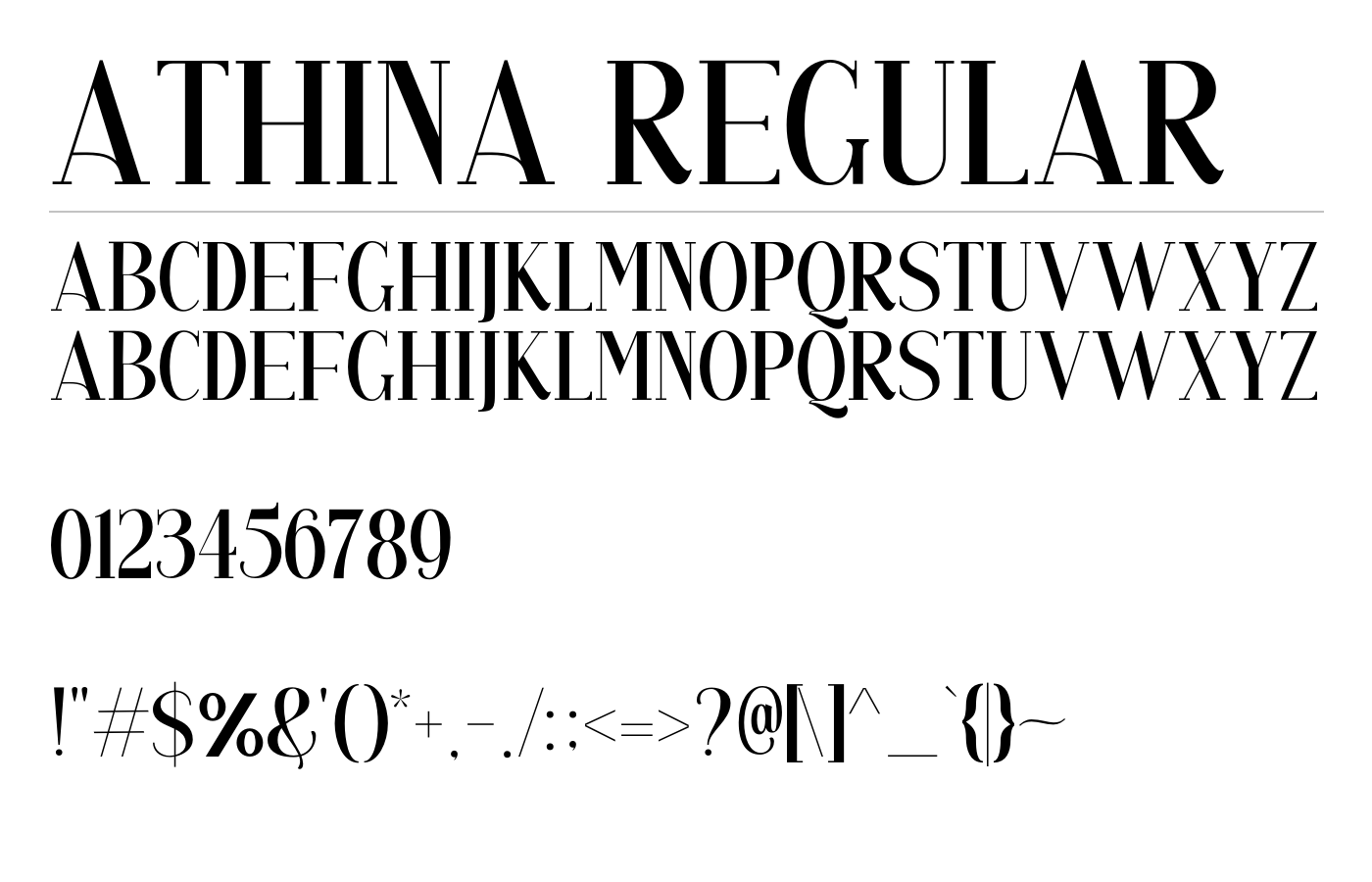
Athina Regular is an elegant serif font with a high contrast between thick and thin strokes, featuring refined, sharp serifs that give it a sophisticated, classic appeal. Its tall, narrow letterforms and unique details, like the curved tail on the Q and distinct ampersand, make it ideal for luxury branding, editorial headlines, and stylish packaging where a timeless, graceful impression is desired. This font’s airy spacing and crisp design help convey a sense of refinement and exclusivity in a modern yet vintage-inspired way.
Athina Regular Font
About Athina Regular Font
| Designer | Gustian Agung Asprilla |